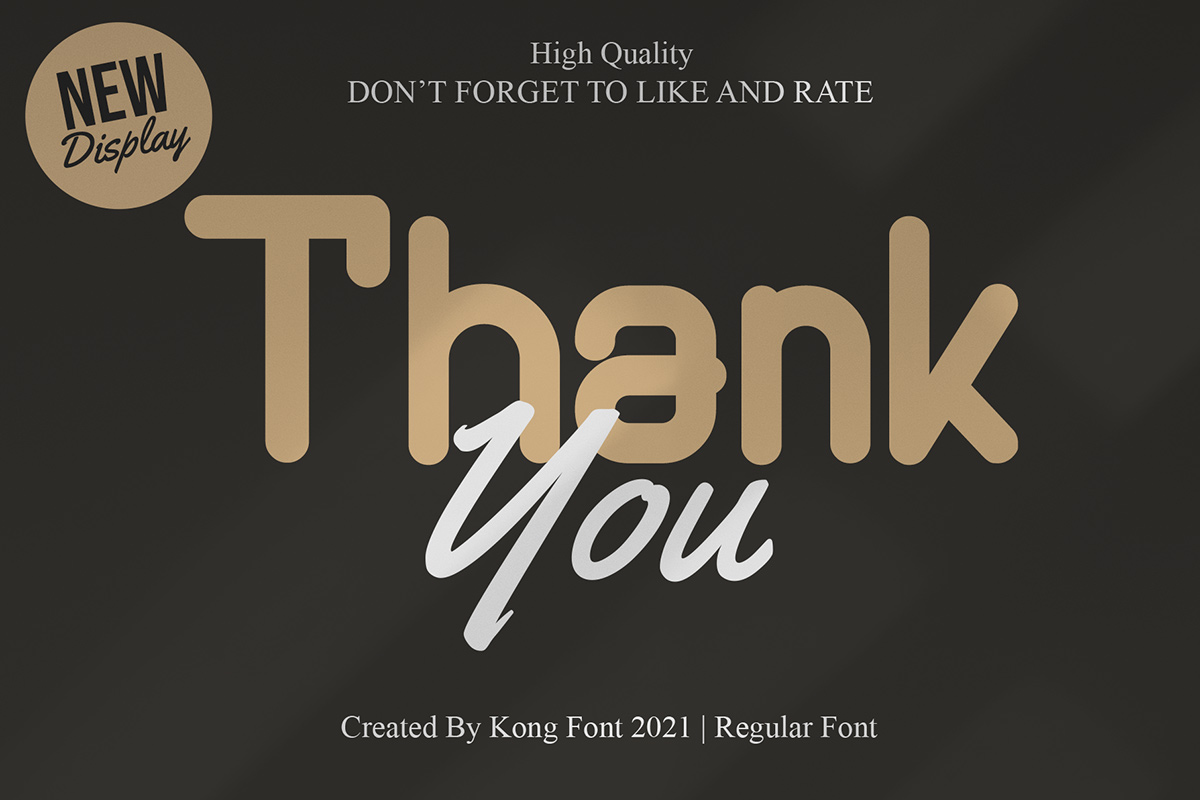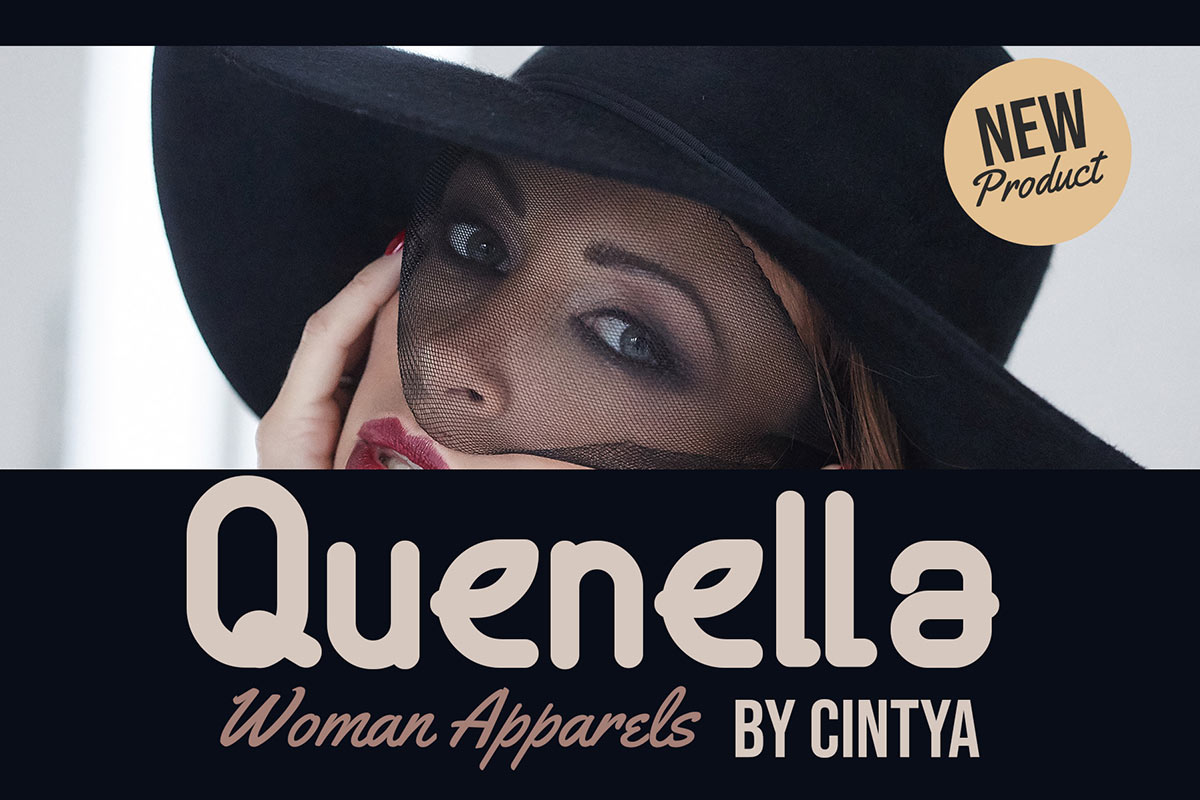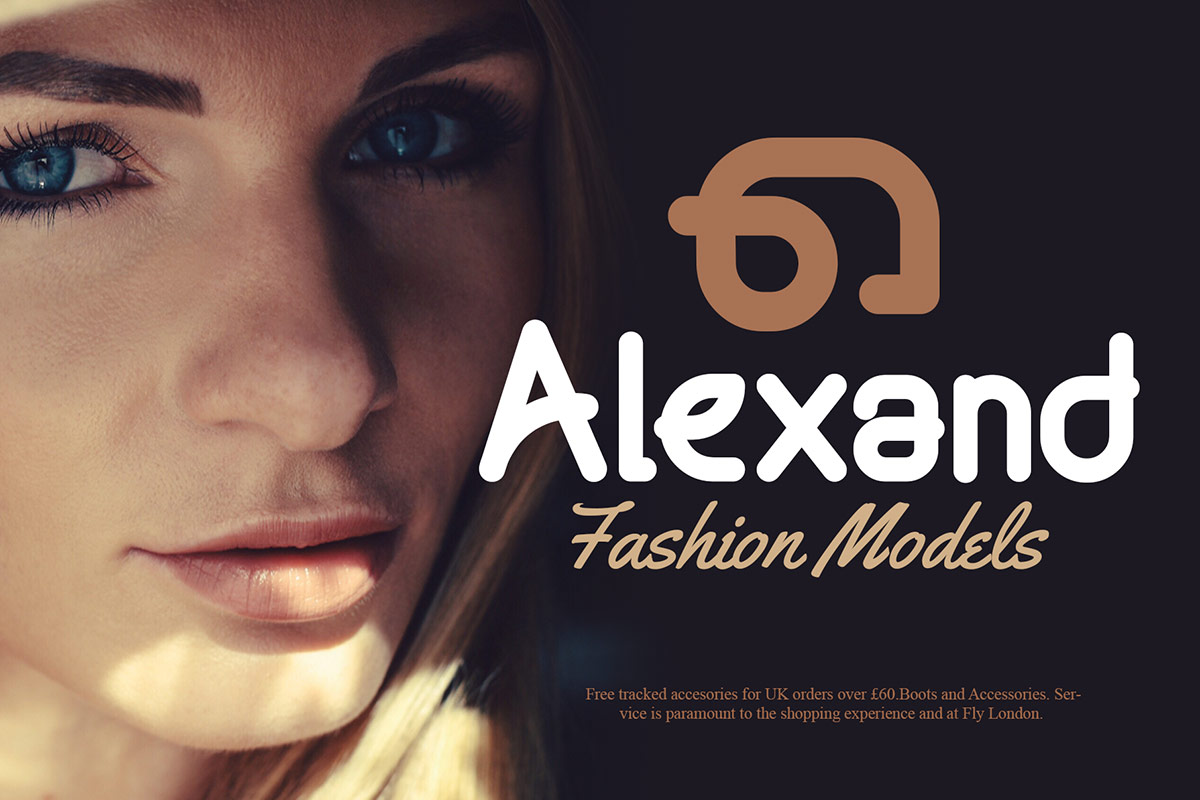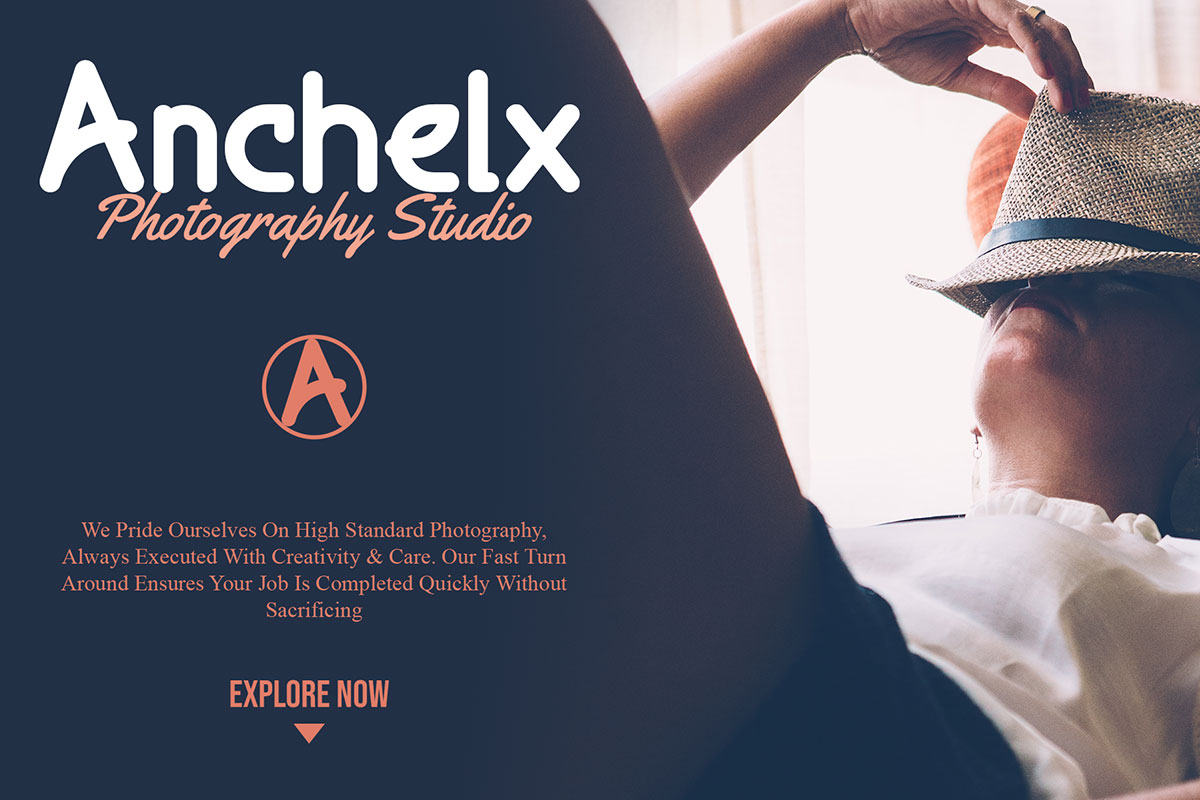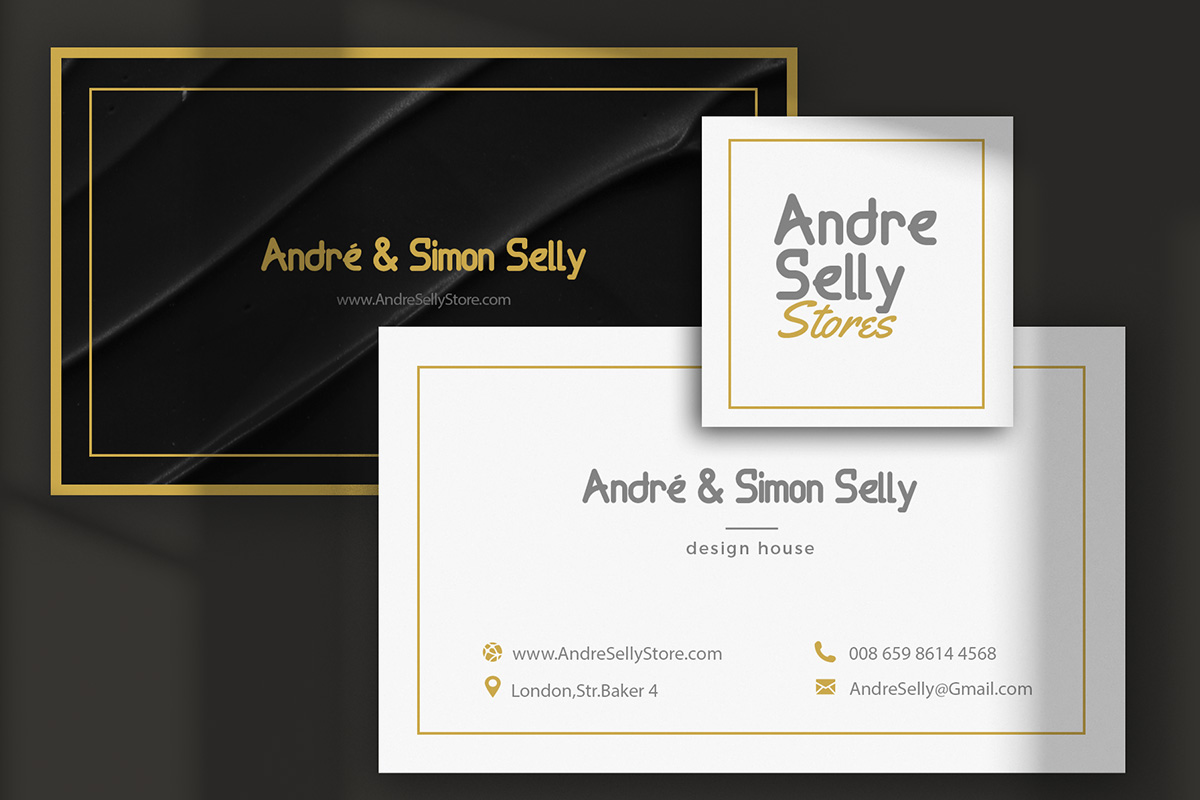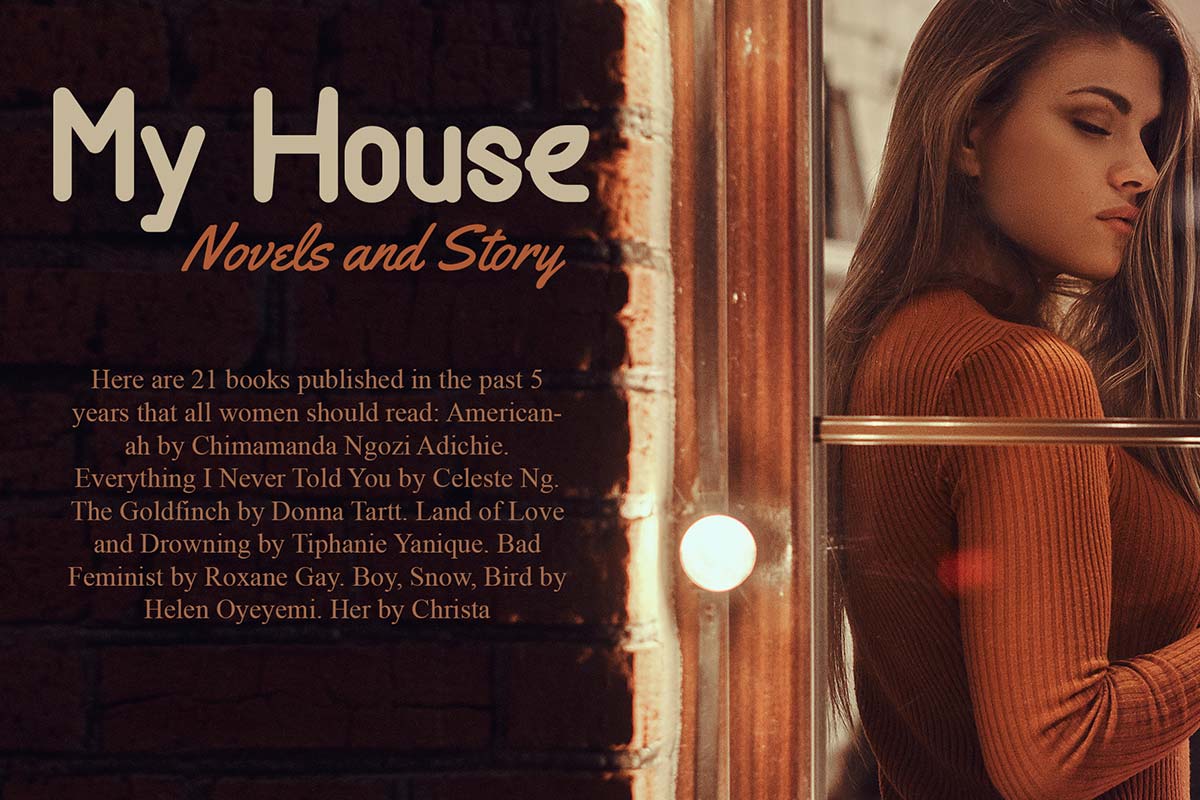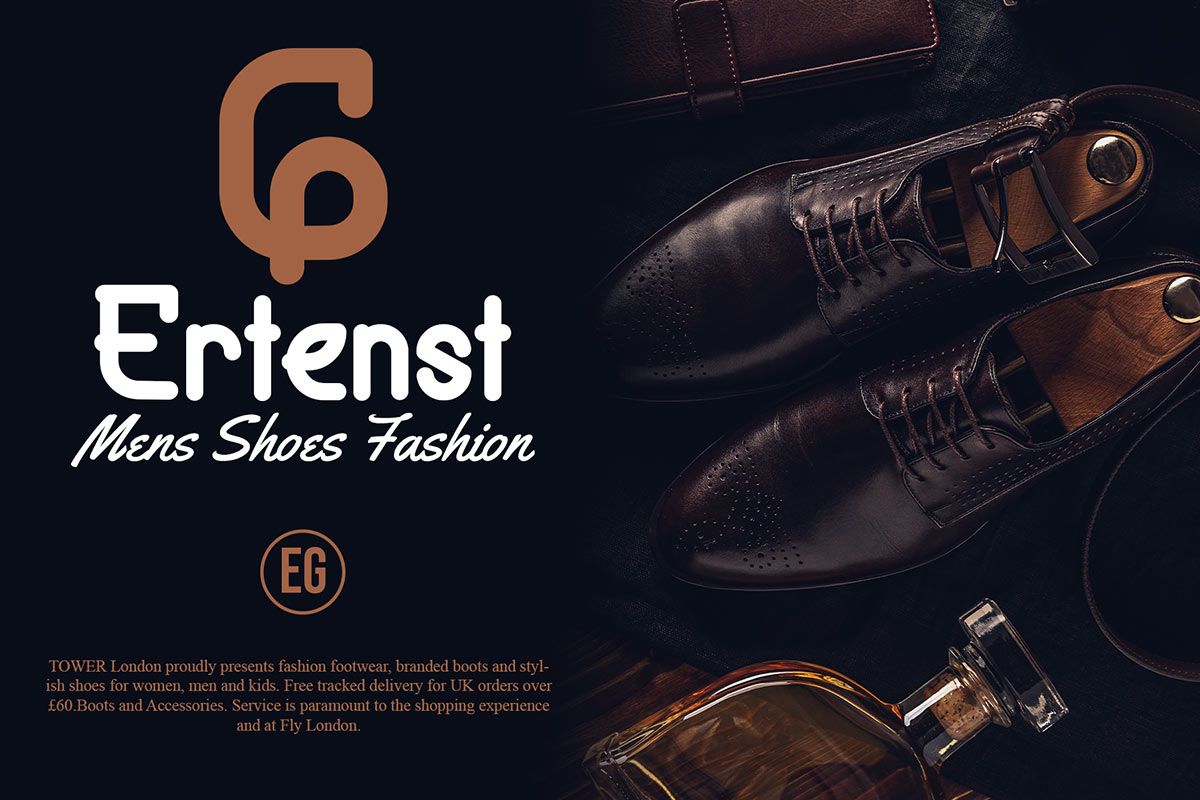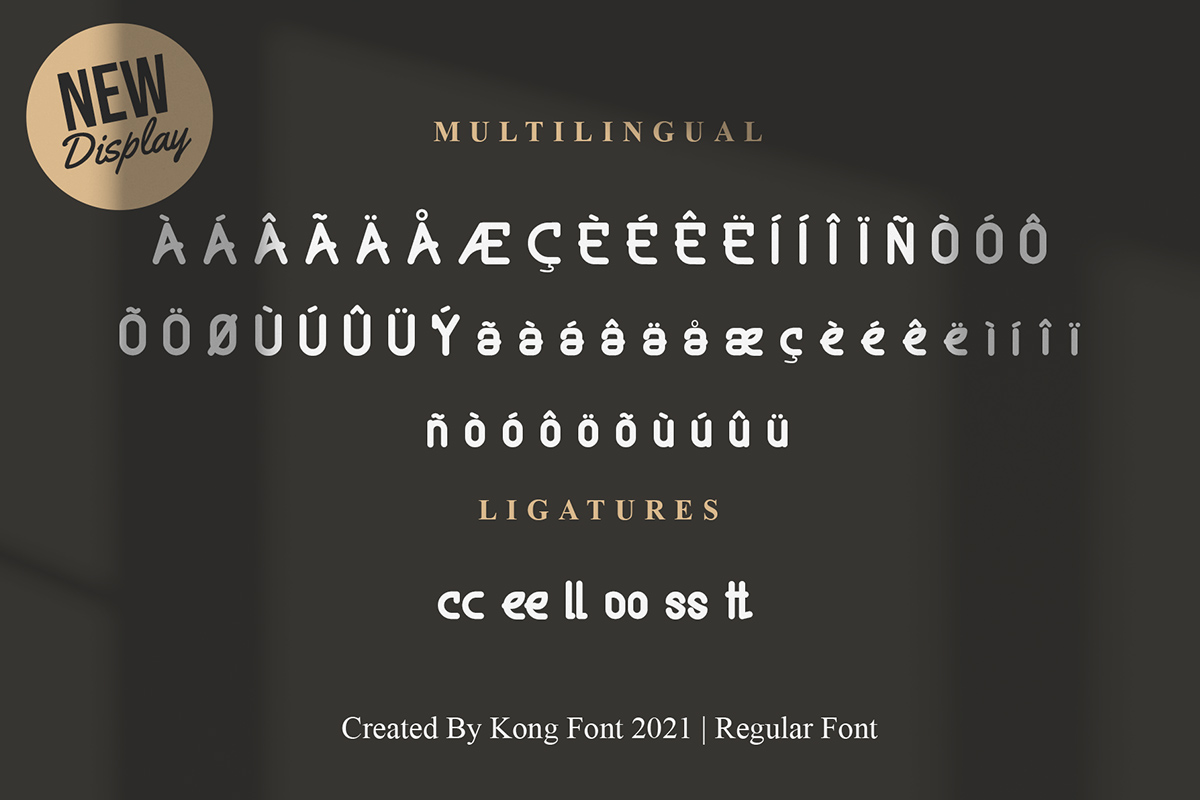
Goostt display Font Goostt Elegant Display Font is one of our display font collections. Although part of our modern fonts, Goostt Elegant Display Font is quite decorative in style and can serve as a centerpiece in layouts such as decorative typographic displays. Designed with very modern, simple, and clean but has the artistic feel of a decorative typeface. This font tries to liven things up with its style. Goostt Elegant Display Font has a line width that varies on each part, and has a different appearance of swirls attached to some letters. This font is one of our many sans-serif fonts used for beauty product brand packaging and clothing brand advertising. Apart from the industrial field, this font is suitable for use equipment for a formal event, such as a large meeting that presents many people. The simple but elegant impression attached to this font can make your product look very classy. This font is one of the considerations that you can use in choosing a font to accompany the product you are going to market. Because branding a product is crucial. Our Display fonts collection is compatible for use as Figma fonts, Canva fonts, Freepik Fonts, and Adobe Fonts. They also work as Windows Fonts, and Apple Fonts. For your social media needs, you can use and install fonts in our collection of Sans Serif fonts to use as Instagram Fonts, Facebook Fonts, and Twitter Fonts.